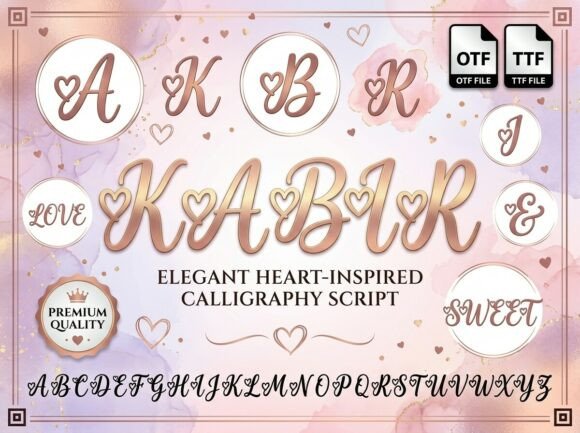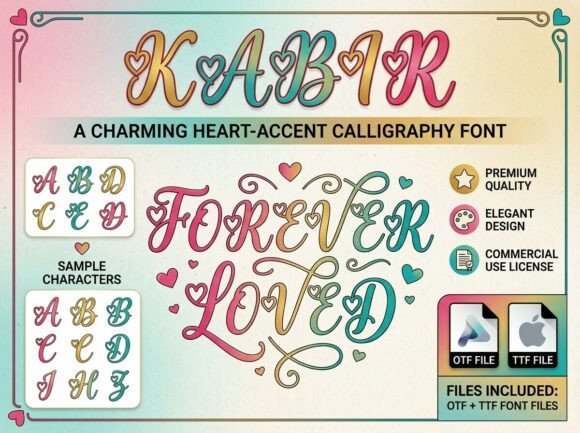
Introduction to Kabir Font
Infuse your designs with love using Kabir, a whimsical calligraphic script that celebrates romance.
Every uppercase character is delicately intertwined with a hand-drawn heart flourish, making it a โsweetheartโ choice for Valentineโs Day stationery, wedding invitations, and boutique branding Whether you are creating a logo for a handmade gift shop or personalized social media graphics, Kabir adds a rhythmic, heartfelt touch to every word.
Key Features of Kabir Font
Why Choose Kabir Font?
Kabir Font offers exceptional quality and versatility, making it a valuable addition to your design toolkit. Whether you’re creating for personal projects or commercial use, Kabir Font delivers professional results.